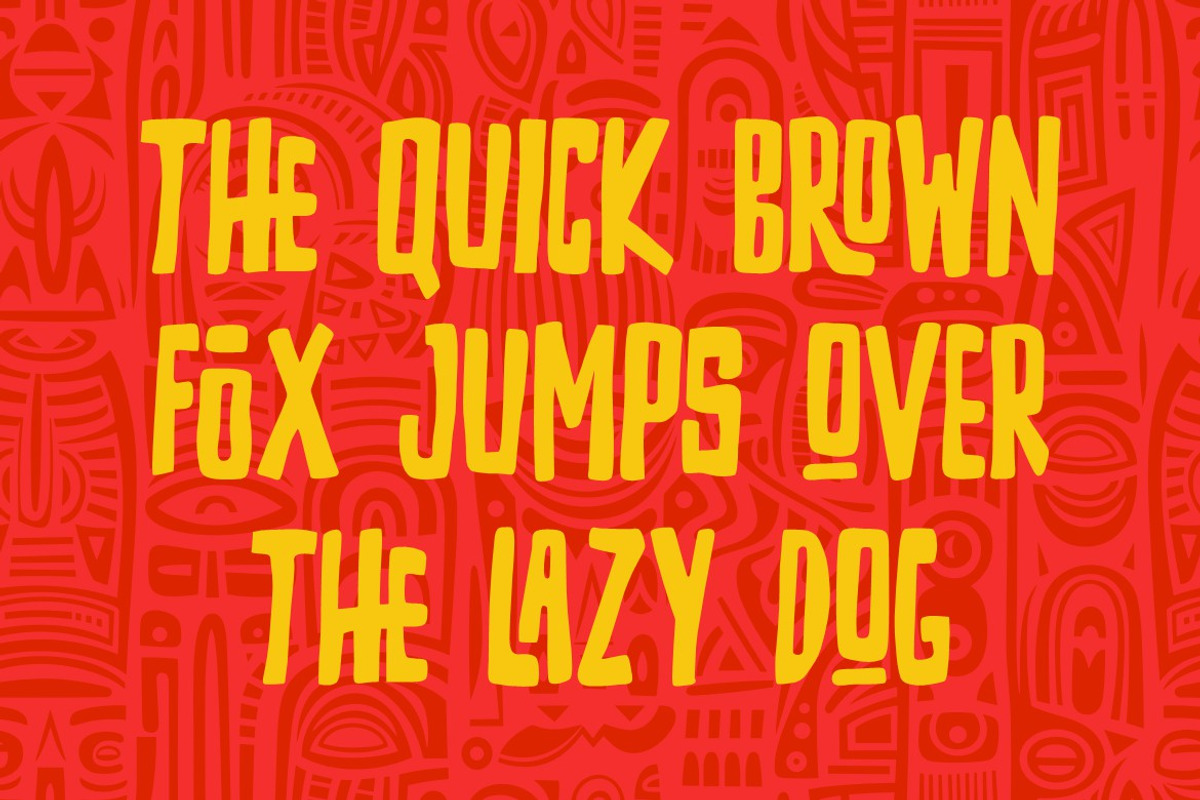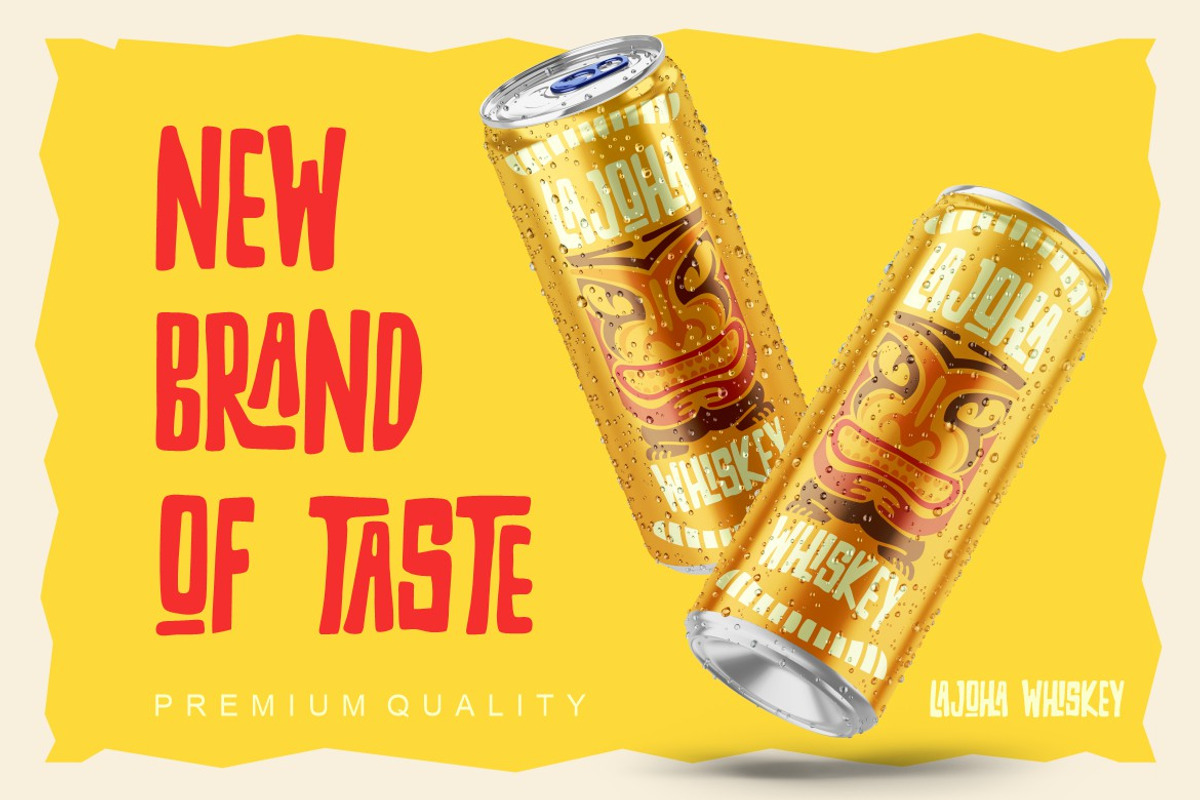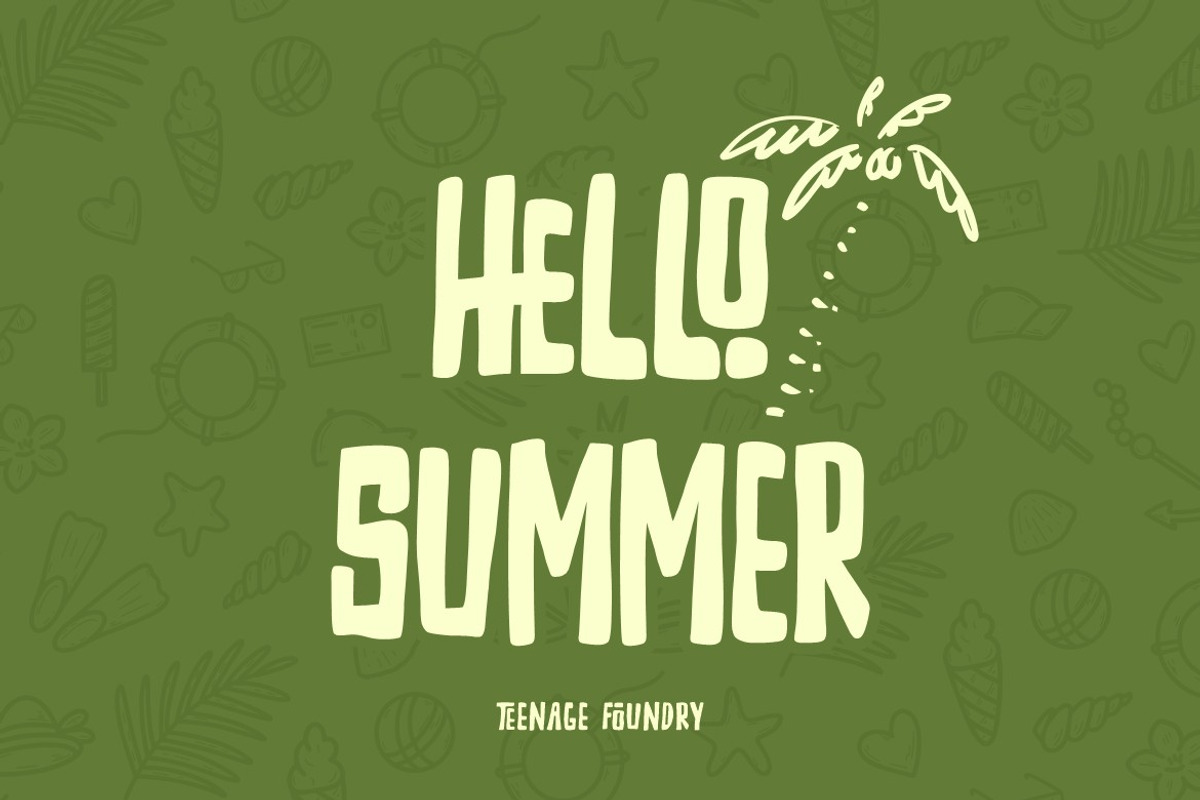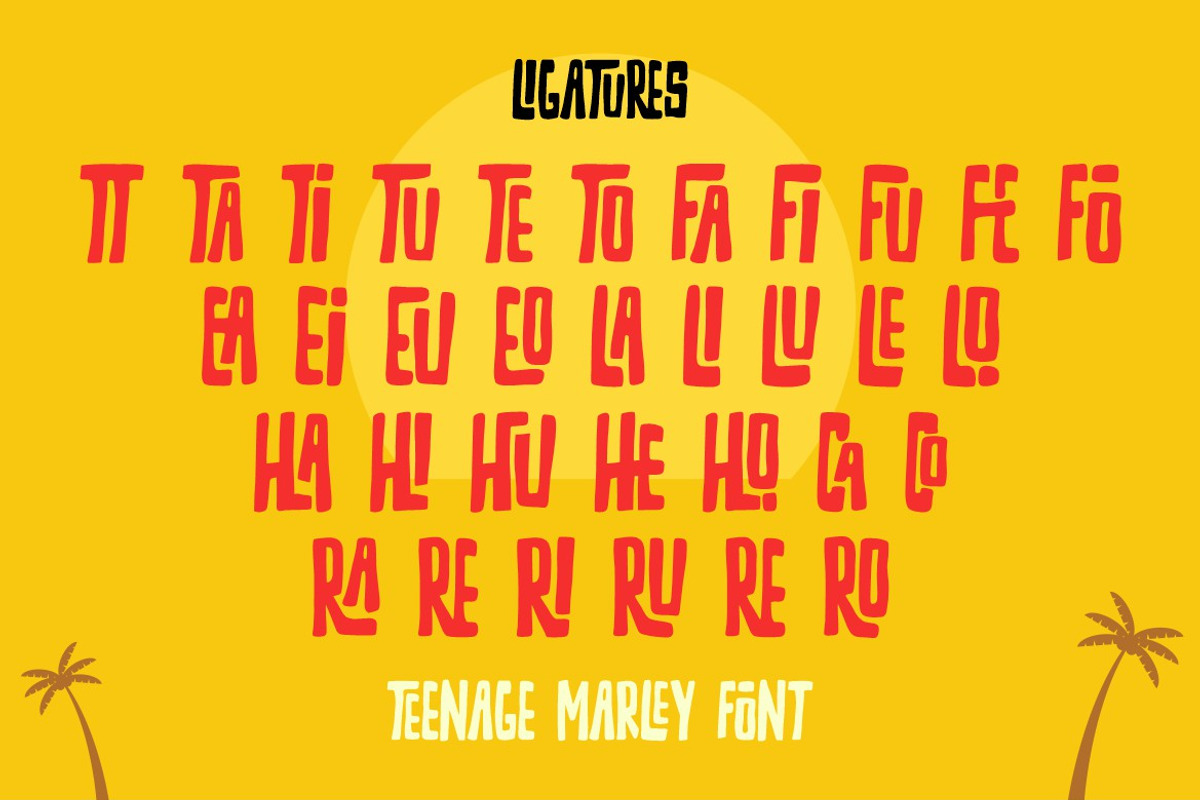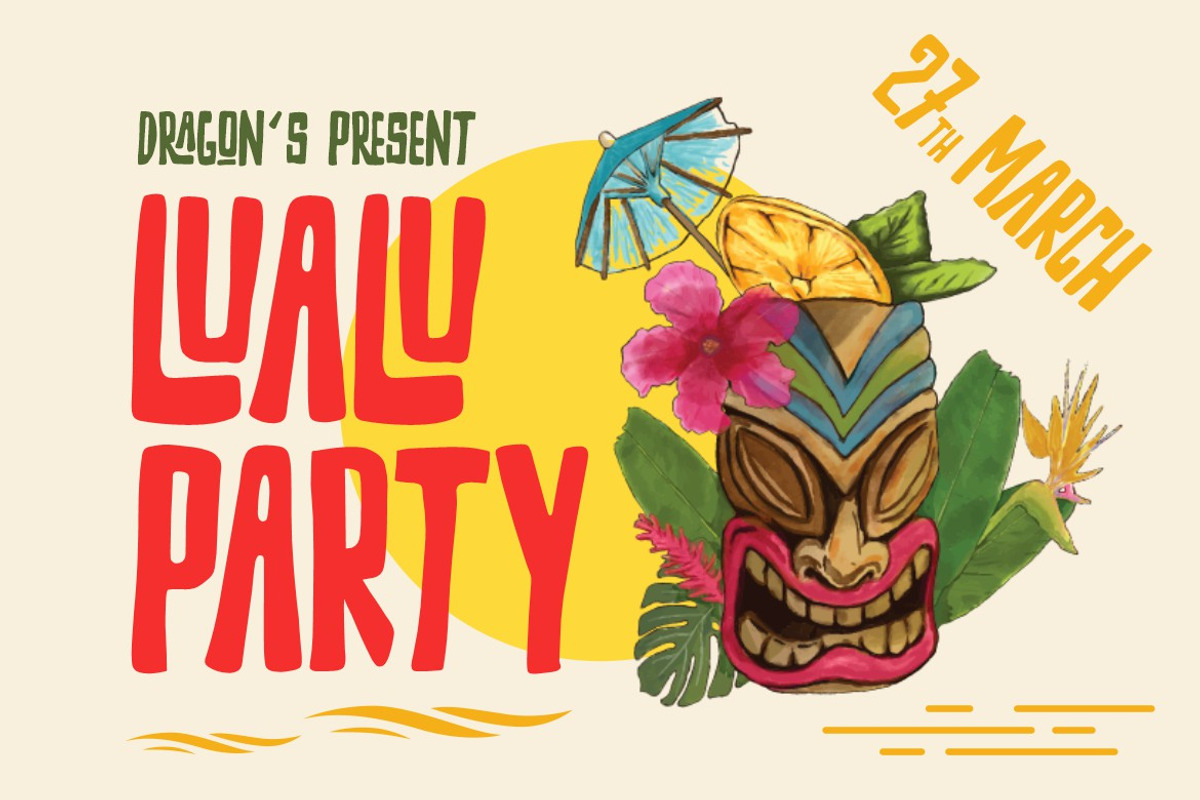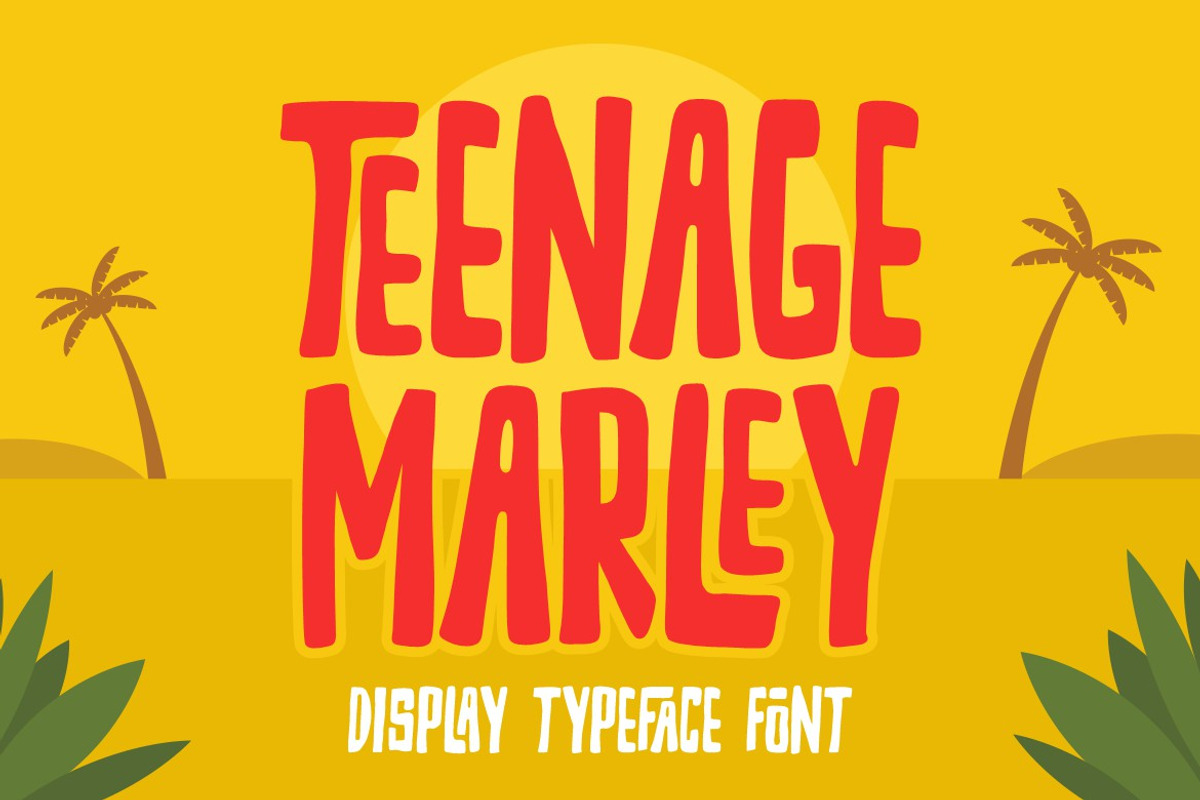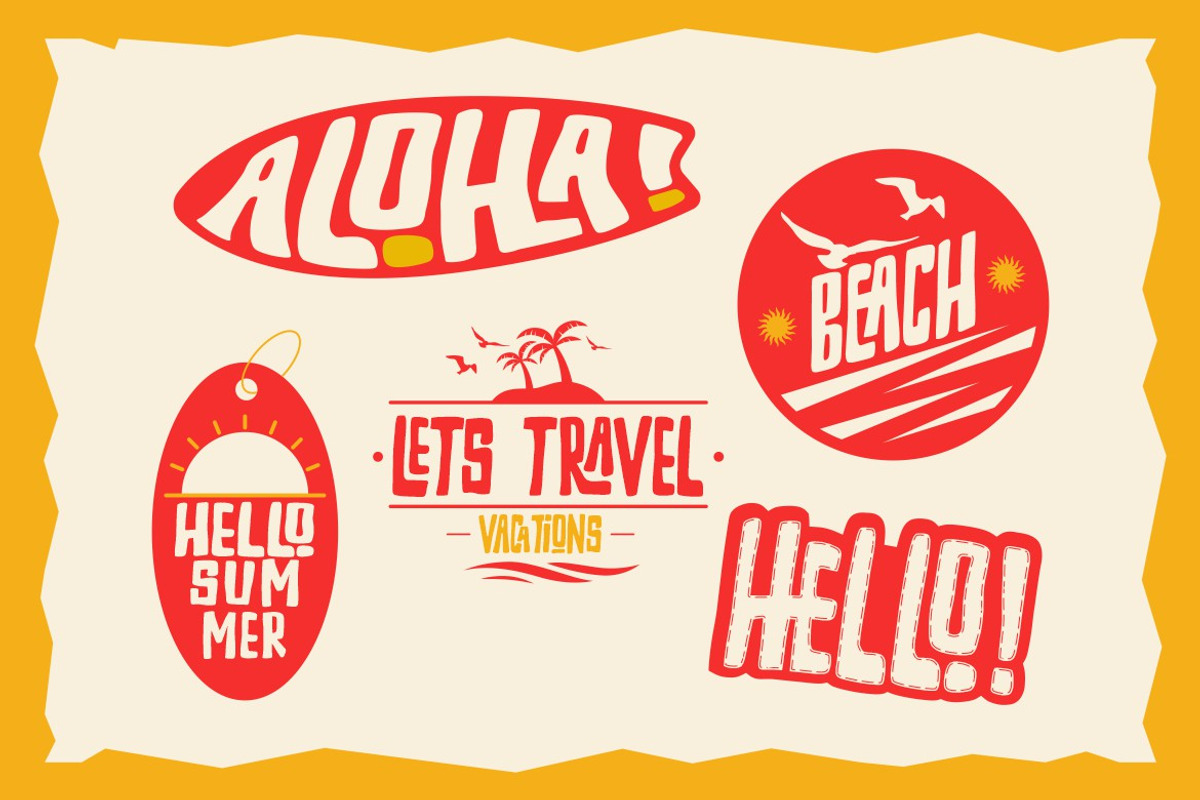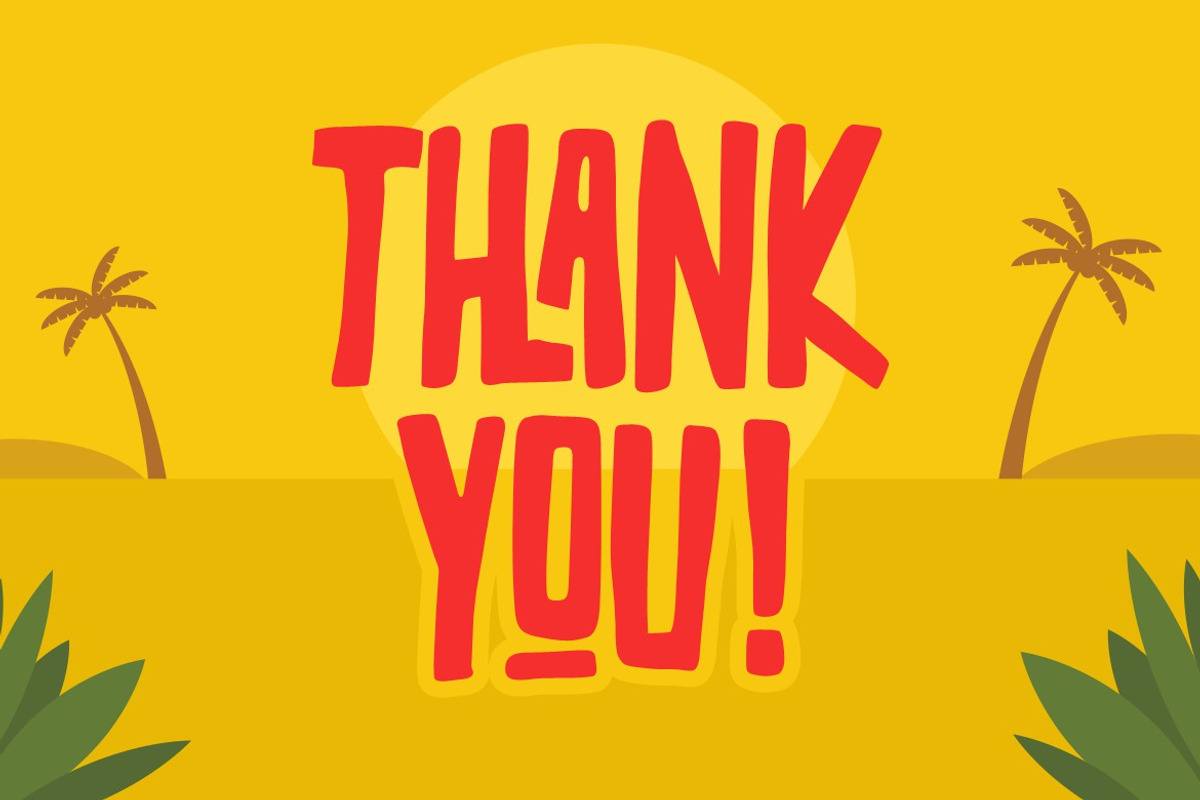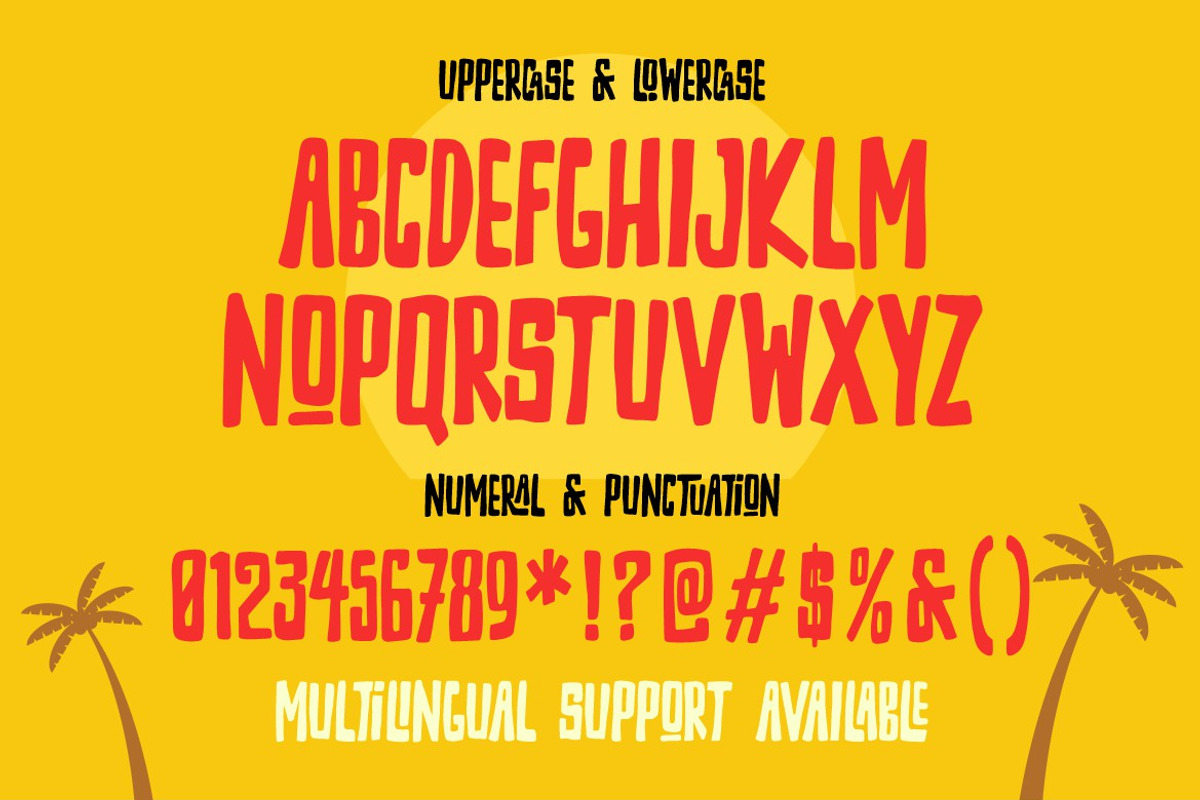
Teenage Marley
Teenage Marley is a typeface display font that embodies the spirit of adventure and the tropical vibes of a tiki paradise.
One standout feature of Teenage Marley is its extensive collection of ligatures. These ligatures not only enhance the aesthetics of the font but also allow for more creative and visually appealing typographic compositions.
With its tropical theme, Teenage Marley brings to mind sunny beaches, tiki huts, and surf culture. The letterforms are inspired by traditional Polynesian art, featuring intricate patterns and detailed ornamentation that add depth and visual interest.
This font is ideal for various design projects that require a vibrant and whimsical touch, such as retro-inspired posters, branding materials, party invitations, and packaging.